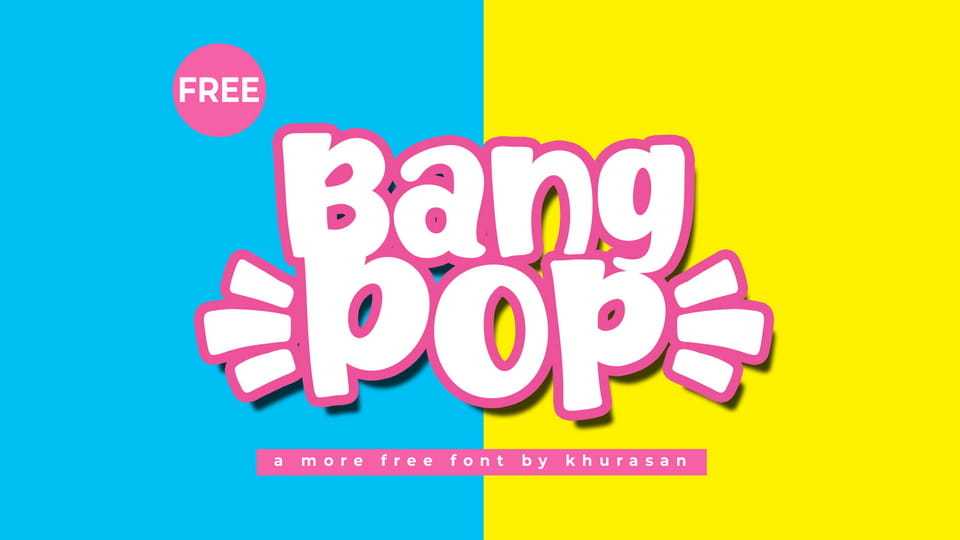
Download Bang Pop font, a bold and bubbly display typeface inspired by playful and cartoon-style lettering. Its rounded forms and thick strokes create a cheerful and eye-catching look